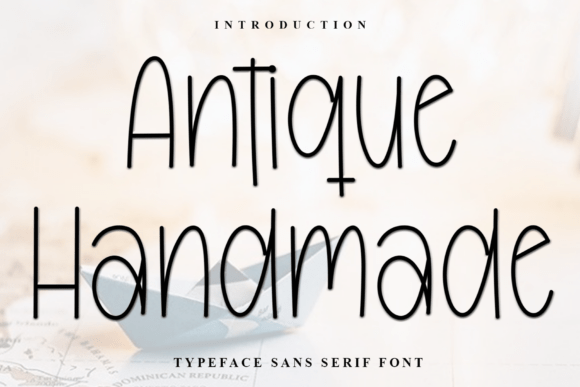
The Magic of Antique Handmade Font: A Festive Holiday Companion
I still remember the year I spent hours searching for the perfect font for a client’s holiday card project. The design brief called for something festive, yet elegant; something that would make the card stand out on doorsteps and mantles. As I scrolled through font after font, I couldn’t shake the feeling that something was missing. That was until I stumbled upon Antique Handmade Font. With its whimsical flair and decorative elements, it instantly captured the spirit of the holiday season. In this article, I’ll share my experience with this enchanting font, its features, and how to make the most of it in your designs.
An Honest Review of Antique Handmade Font
- ✨ Festive and Merry: Antique Handmade Font embodies the joy and cheer of the holiday season, making it perfect for greeting cards, gift tags, and holiday-themed projects.
- 🎉 Whimsical Flair: The font’s decorative elements add a touch of enchantment to your designs, making them truly special.
While Antique Handmade Font is a delightful addition to any design project, there are a few things to keep in mind:
- ⚠️ Legibility at Small Sizes: As with many decorative fonts, legibility may be an issue at very small sizes. It’s best to use Antique Handmade Font at larger sizes to ensure your text remains clear.
- 🤔 Pairing with Other Fonts: Due to its bold and whimsical nature, Antique Handmade Font can be challenging to pair with other fonts. Experiment with complementary fonts to find the perfect combination.
The Backstory of Antique Handmade Font
The story behind Antique Handmade Font begins with a small, independent foundry that aimed to create a font that would evoke the magic of the holiday season. Inspired by vintage holiday cards and decorations, the font’s designer poured their heart into crafting a typeface that would bring joy and wonder to designers and their clients. With its unique blend of decorative elements and whimsical flair, Antique Handmade Font has become a beloved companion for holiday design projects.